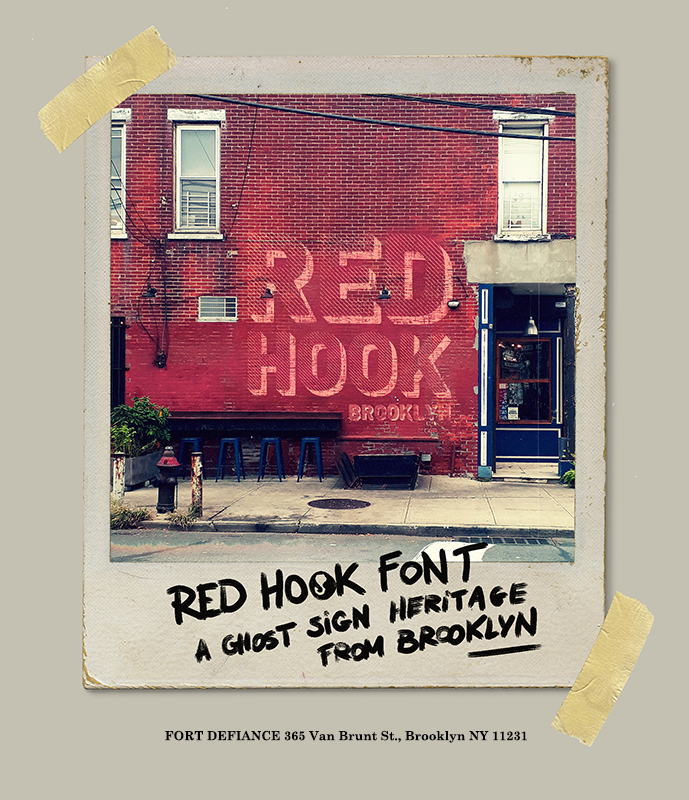
Preview and download Red Hook Font. Created by Alexandre Noyer in Fancy Retro styles with Free for personal use license.
RED HOOK A ghost sign heritage from Brooklyn. Inspired by my walks, surrounded by the brick walls of Red hook. Hope you enjoy. Alexandre |